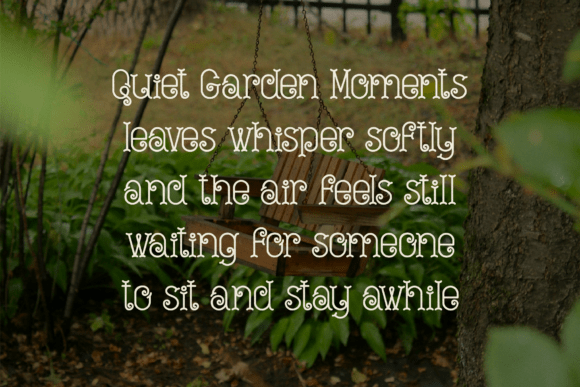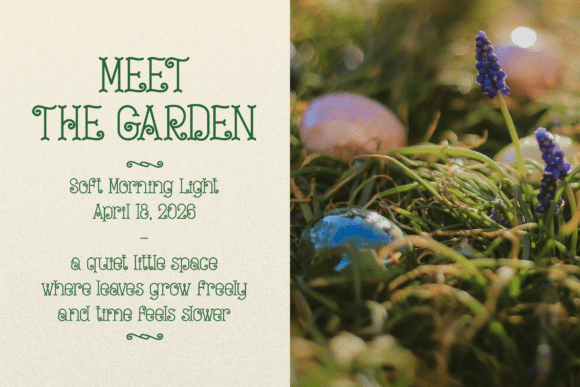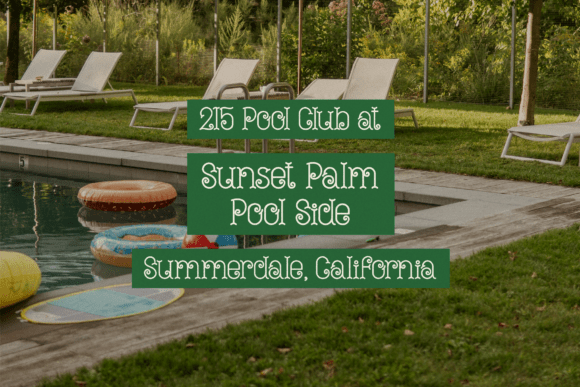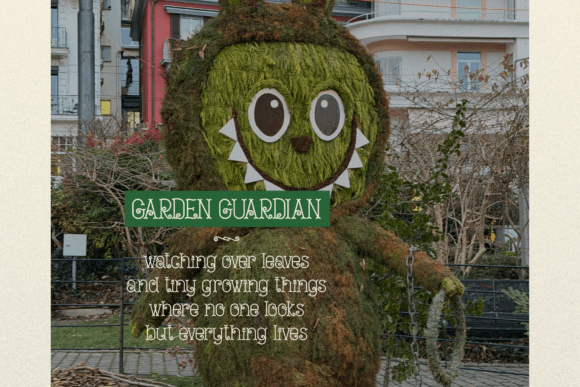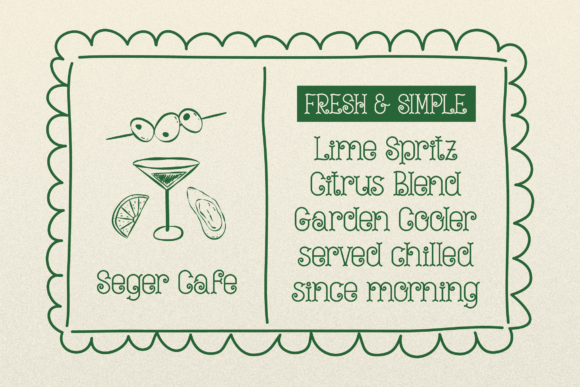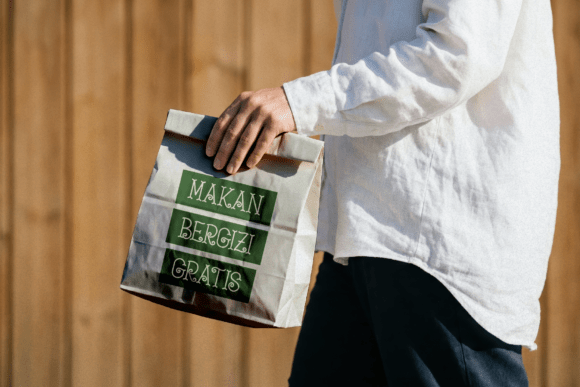
Discover the Whimsical Charm of Curlicue Garden Font
Step into a world of botanical enchantment with Curlicue Garden, a whimsical hand-drawn display font that will transport you to a storybook-inspired realm. This elegant typeface features slender letterforms adorned with rhythmic curls and spiraling flourishes that mimic the organic growth of garden vines. With its playful “fairytale-chic” aesthetic and decorative charm, Curlicue Garden is the premier choice for designers and crafters looking to add a touch of magic to their projects.
A Font Inspired by Nature
Curlicue Garden is a font that celebrates the beauty of nature. Its design is reminiscent of traditional garden art, with intricate curls and flourishes that evoke the delicate tendrils of climbing plants. The font’s hand-drawn feel gives it a unique, artisanal quality that is perfect for brands and businesses looking to convey a sense of whimsy and charm.
Perfect for Botanical Brands and Crafters
Curlicue Garden is an ideal choice for independent plant nursery branding, artisanal tea shop logos, and whimsical children’s book titles. Its elegant, cursive feel makes it perfect for high-end brands looking to convey a sense of sophistication and refinement. At the same time, its playful, storybook-inspired aesthetic ensures that it will appeal to crafters and small business owners looking to add a touch of personality to their branding.
Key Features of Curlicue Garden Font
- Whimsical hand-drawn design: Curlicue Garden features a unique, hand-drawn design that gives it a distinctive, artisanal feel.
- Elegant, slender letterforms: The font’s slender letterforms are perfect for creating beautiful, high-impact headings and titles.
- Rhythmic curls and flourishes: Curlicue Garden’s signature curls and flourishes add a touch of magic to any design.
- Playful “fairytale-chic” aesthetic: The font’s playful, storybook-inspired aesthetic makes it perfect for brands and businesses looking to convey a sense of whimsy and charm.
Using Curlicue Garden in Your Designs
Curlicue Garden is a versatile font that can be used in a variety of design applications. Here are a few ideas to get you started:
- Logos and branding: Use Curlicue Garden to create beautiful, eye-catching logos and branding materials for your business.
- Social media headers: Add a touch of personality to your social media profiles with Curlicue Garden’s whimsical, high-impact headers.
- Children’s book titles: Bring your children’s book to life with Curlicue Garden’s playful, storybook-inspired font.
- Wedding and event invitations: Use Curlicue Garden to create beautiful, elegant invitations for weddings and other special events.
Why Choose Curlicue Garden?
With so many fonts to choose from, why should you choose Curlicue Garden? Here are just a few reasons:
- Unique, hand-drawn design: Curlicue Garden’s hand-drawn design ensures that your designs will stand out from the crowd.
- High-quality typography: The font is carefully crafted to ensure that it is clear, legible, and beautiful.
Curlicue Garden is a beautiful, whimsical font that is perfect for designers and crafters looking to add a touch of magic to their projects. With its elegant, slender letterforms and rhythmic curls and flourishes, this font is sure to transport you to a world of botanical enchantment. Whether you’re creating logos and branding materials, social media headers, or children’s book titles, Curlicue Garden is the premier choice for anyone looking to convey a sense of whimsy and charm.